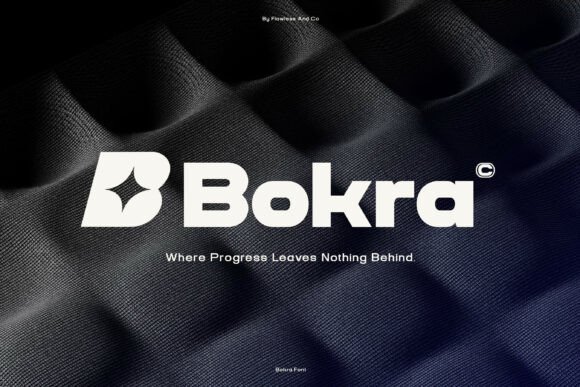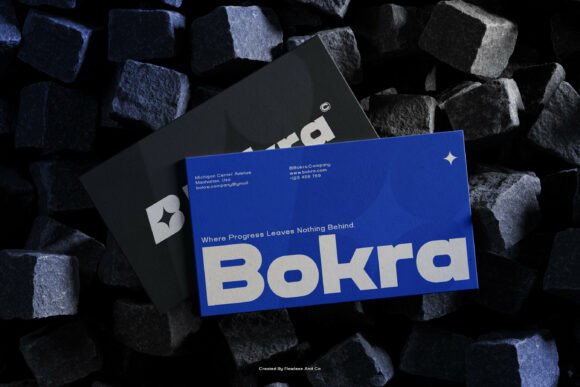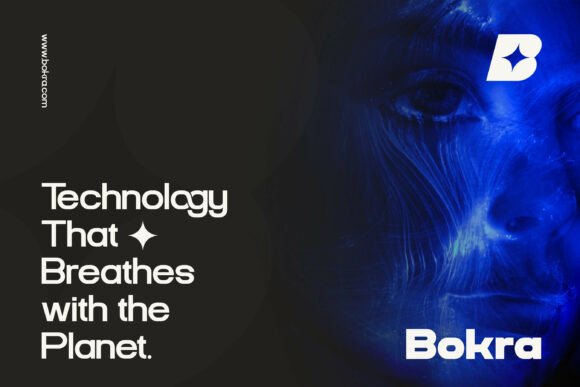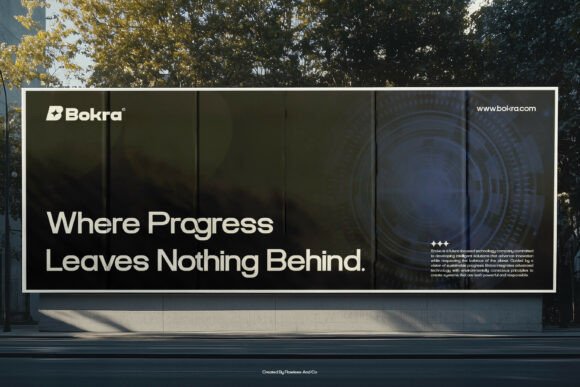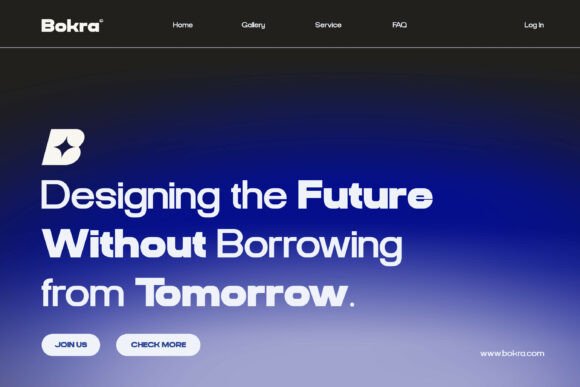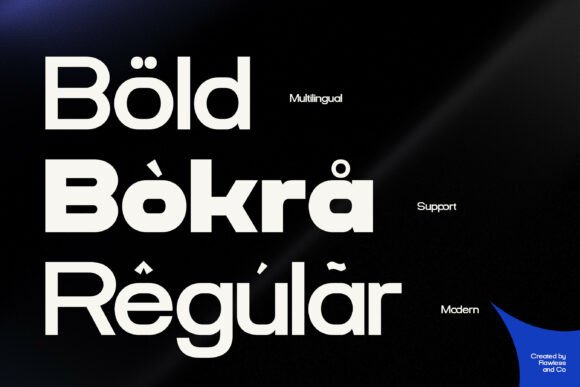
Bringing Clarity to Your Designs
Have you ever stared at a blank page, struggling to find the perfect font to bring your design to life? It’s a challenge many of us face, but what if I told you there’s a font that can make your life easier? Introducing Bokra Font, a bold and modern sans serif font designed to deliver strength, clarity, and a contemporary appeal that’s hard to resist.
Bokra Font is the perfect solution for designers who need a powerful yet minimal look for their modern branding projects. With its clean shapes and strong letterforms, this font is sure to make any design stand out with confidence. Whether you’re working on a logo, brochure, or website, Bokra Font is the ideal choice for adding a touch of sophistication and elegance to your work.
- Unique Characteristics: The font features a unique blend of traditional and modern design elements, resulting in a distinctive and stylish look.
Bokra Font Review
I’ve been experimenting with the Bokra font, and I must say, it’s got some great qualities. ✨ Firstly, its modern and clean design makes it perfect for a wide range of projects, from branding to digital interfaces. The font’s geometric structure gives it a sleek and sophisticated feel that’s hard to resist. ✨ Additionally, Bokra’s bold and condensed styles make it ideal for creating eye-catching headlines and titles.
Another aspect that I appreciate is the font’s versatility. It’s available in multiple weights and styles, allowing you to customize it to suit your specific needs. Whether you’re going for a minimalist or a more dramatic look, Bokra’s got you covered.
While Bokra is an excellent font, I do have some reservations. ⚠️ One thing that I find a bit restrictive is the font’s lack of support for certain languages, which might limit its use in international projects. ⚠️ Additionally, the font’s condensed styles can sometimes appear too condensed, making it difficult to read at smaller font sizes.
Overall, I think Bokra is a solid choice for designers looking for a modern and clean font. While it may have some limitations, its strengths far outweigh its weaknesses. If you’re looking for a versatile and stylish font that can elevate your designs, Bokra is definitely worth considering.
- Modern and clean design
- Available in multiple weights and styles
- Perfect for branding and digital interfaces
- Geometric structure for a sleek and sophisticated feel
The Bokra font is ideal for creating modern, elegant designs, making it perfect for:
- Graphic designs and digital art
Tips for Getting the Most Out of Bokra
To get the most out of the Bokra font, experiment with different font sizes, colors, and combinations to achieve a unique look. Also, pair the font with simple backgrounds and minimalistic designs to let the font be the focal point.